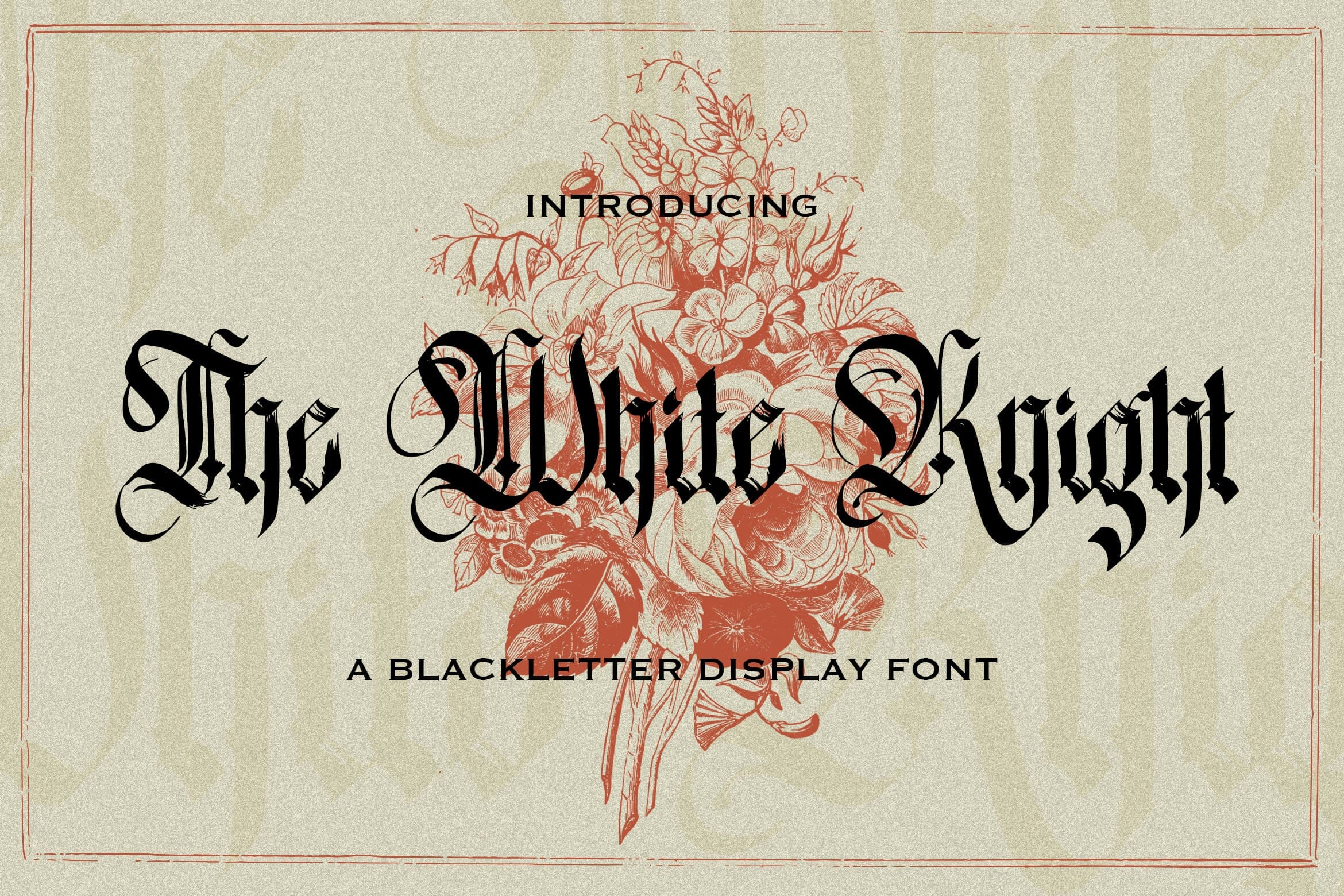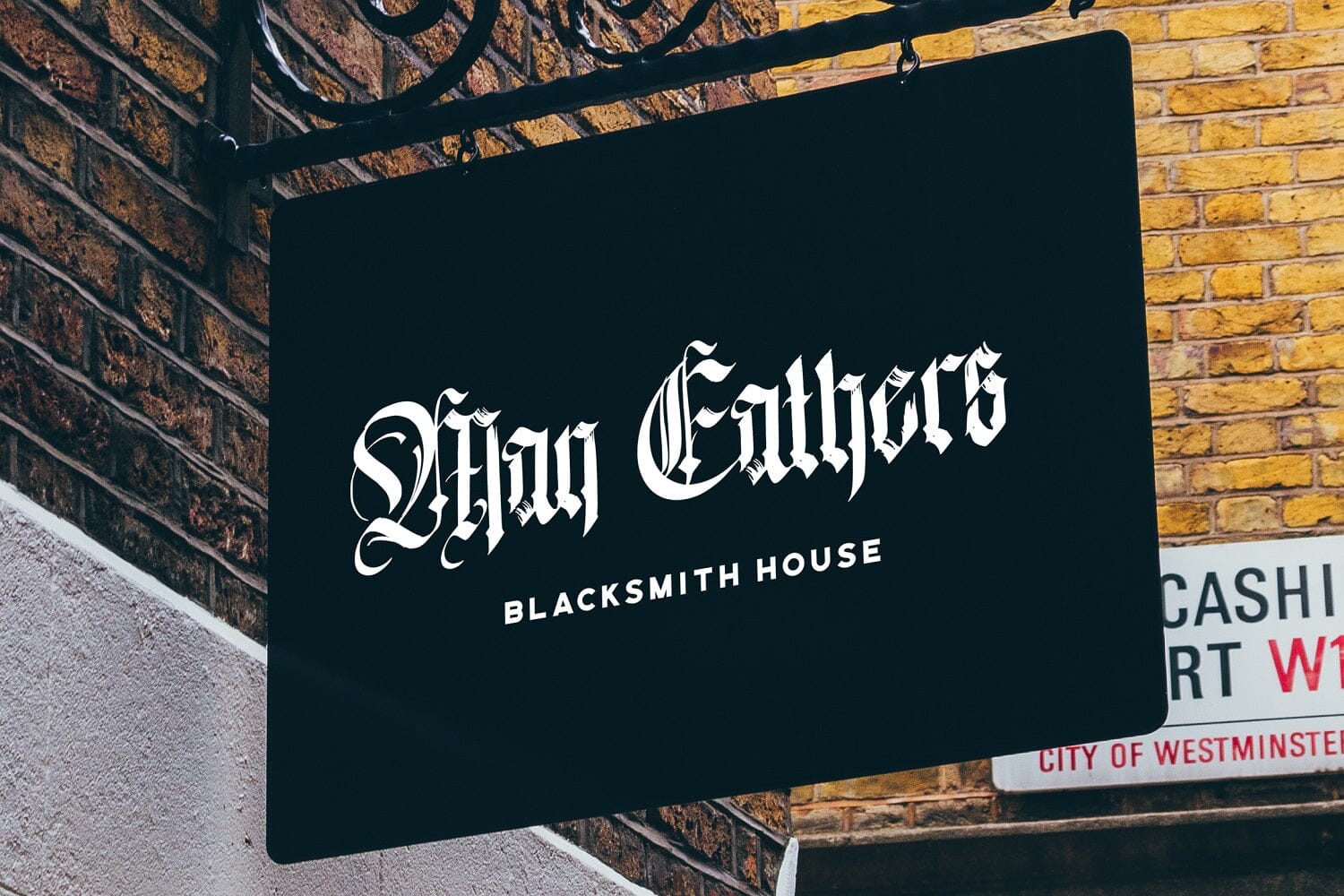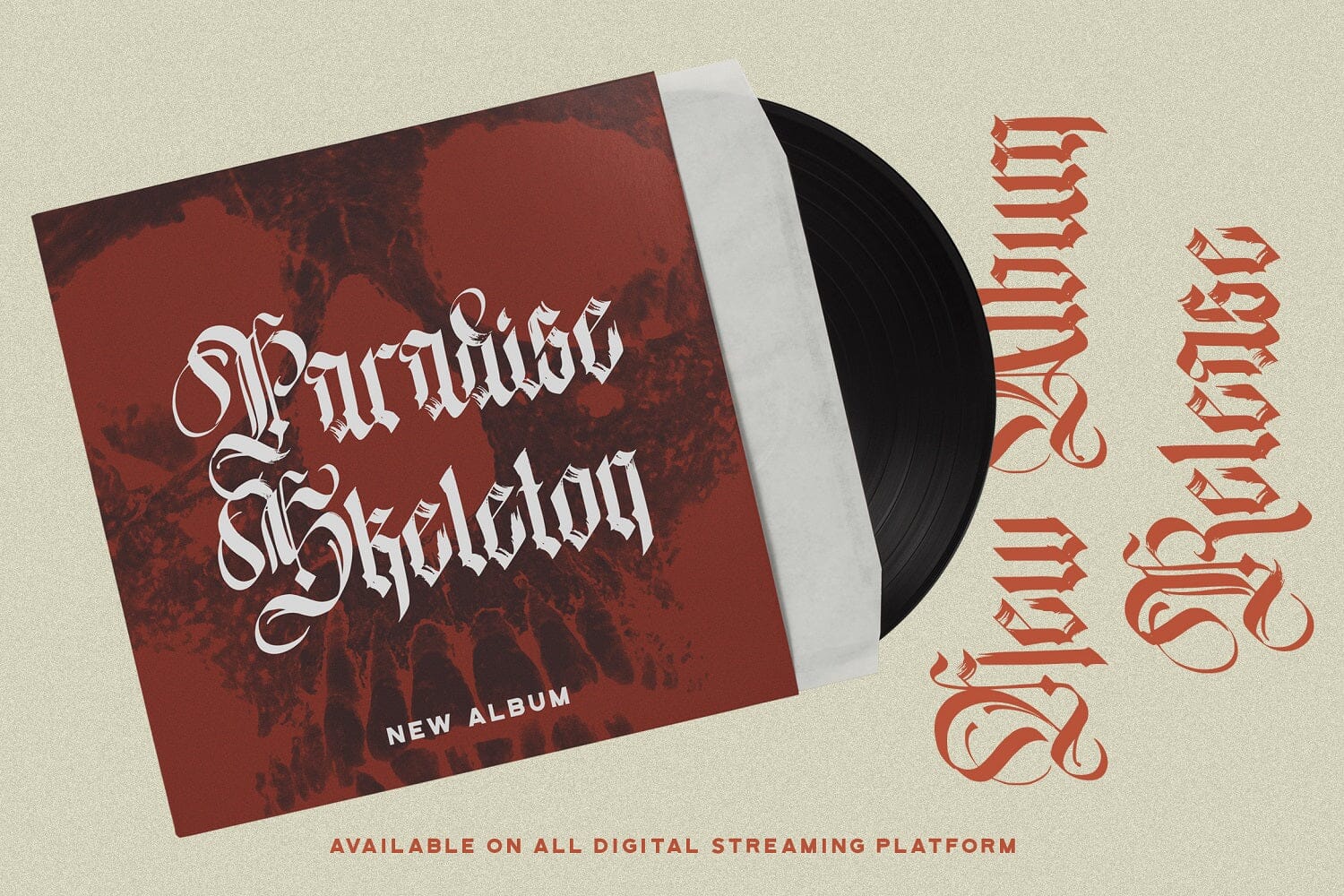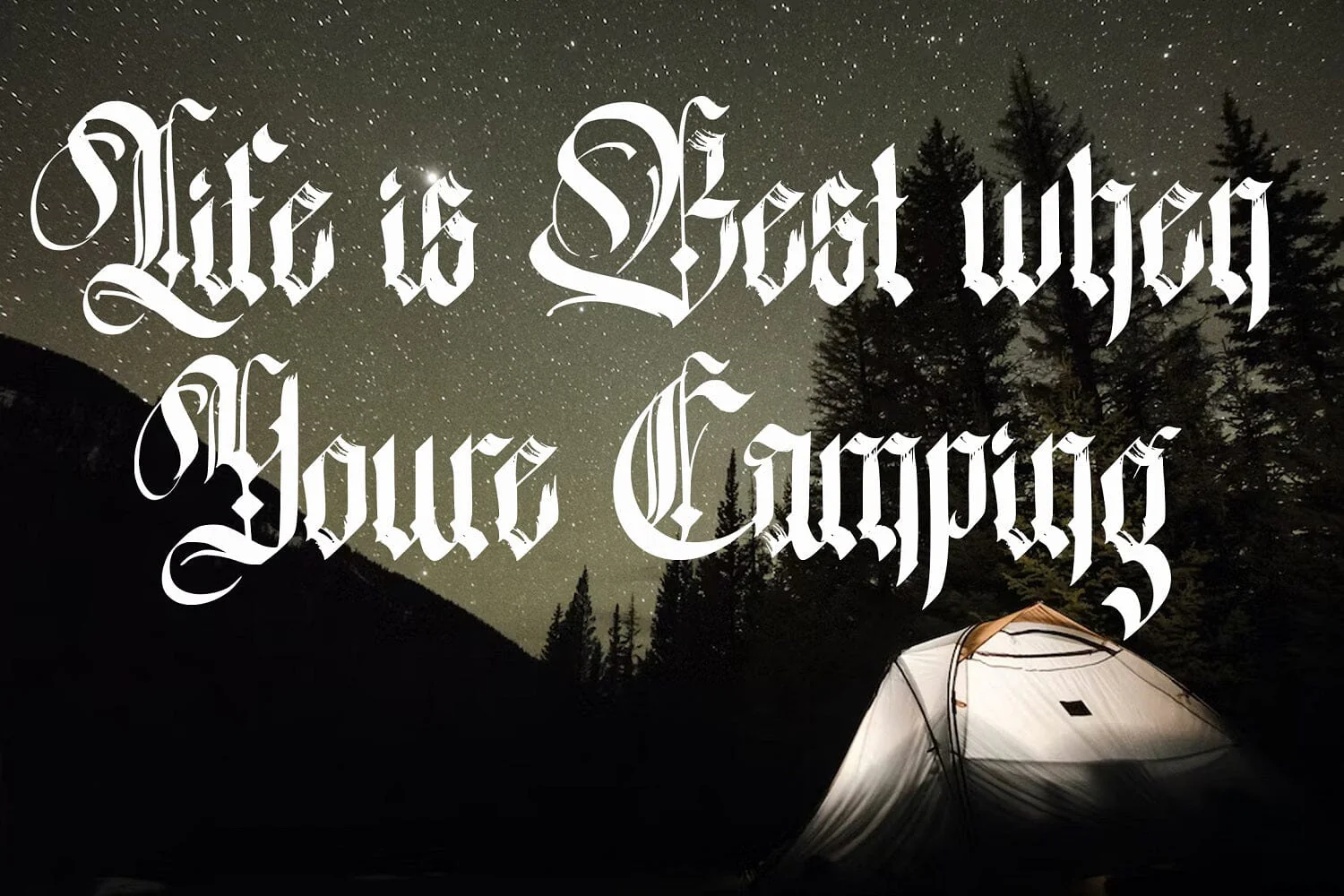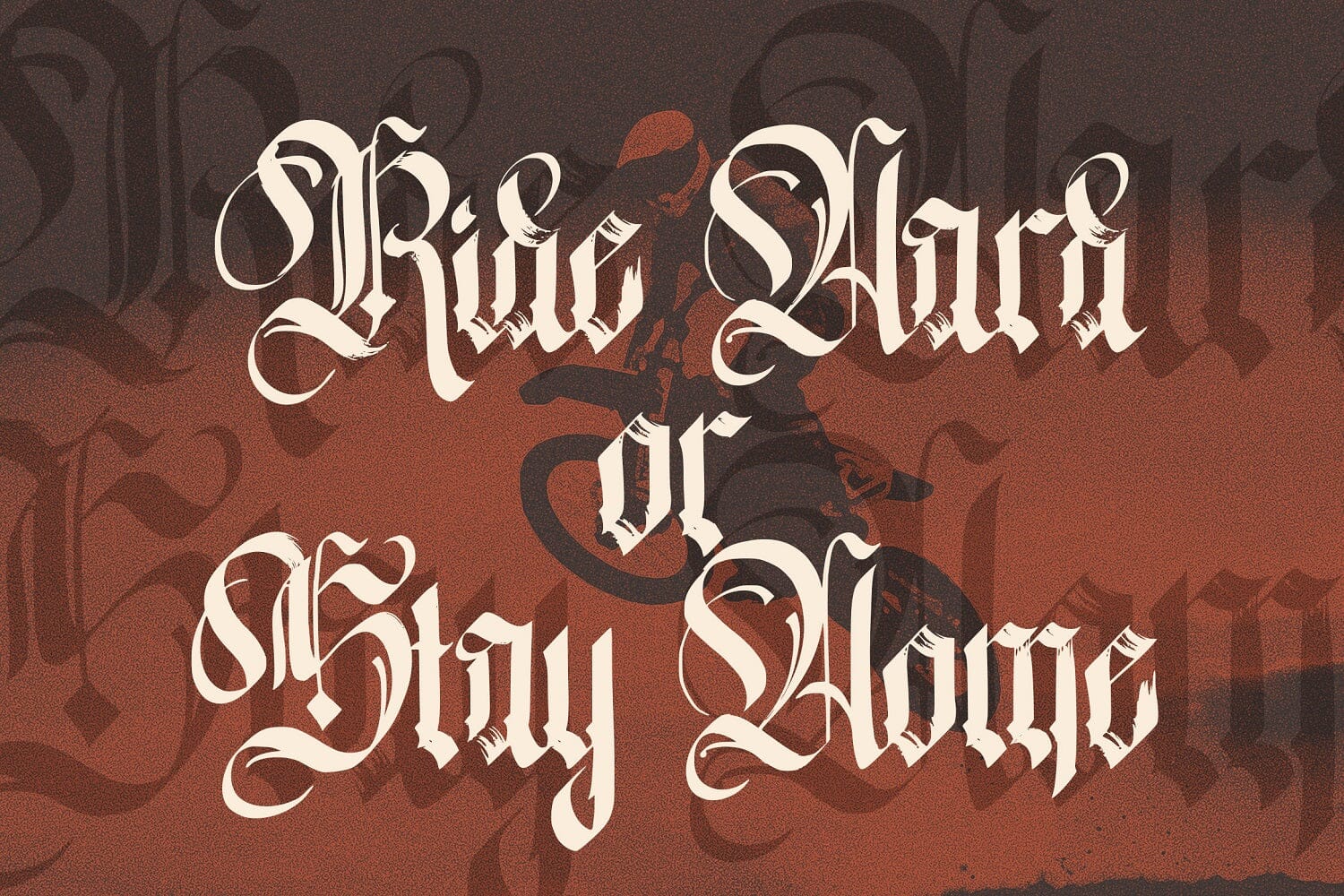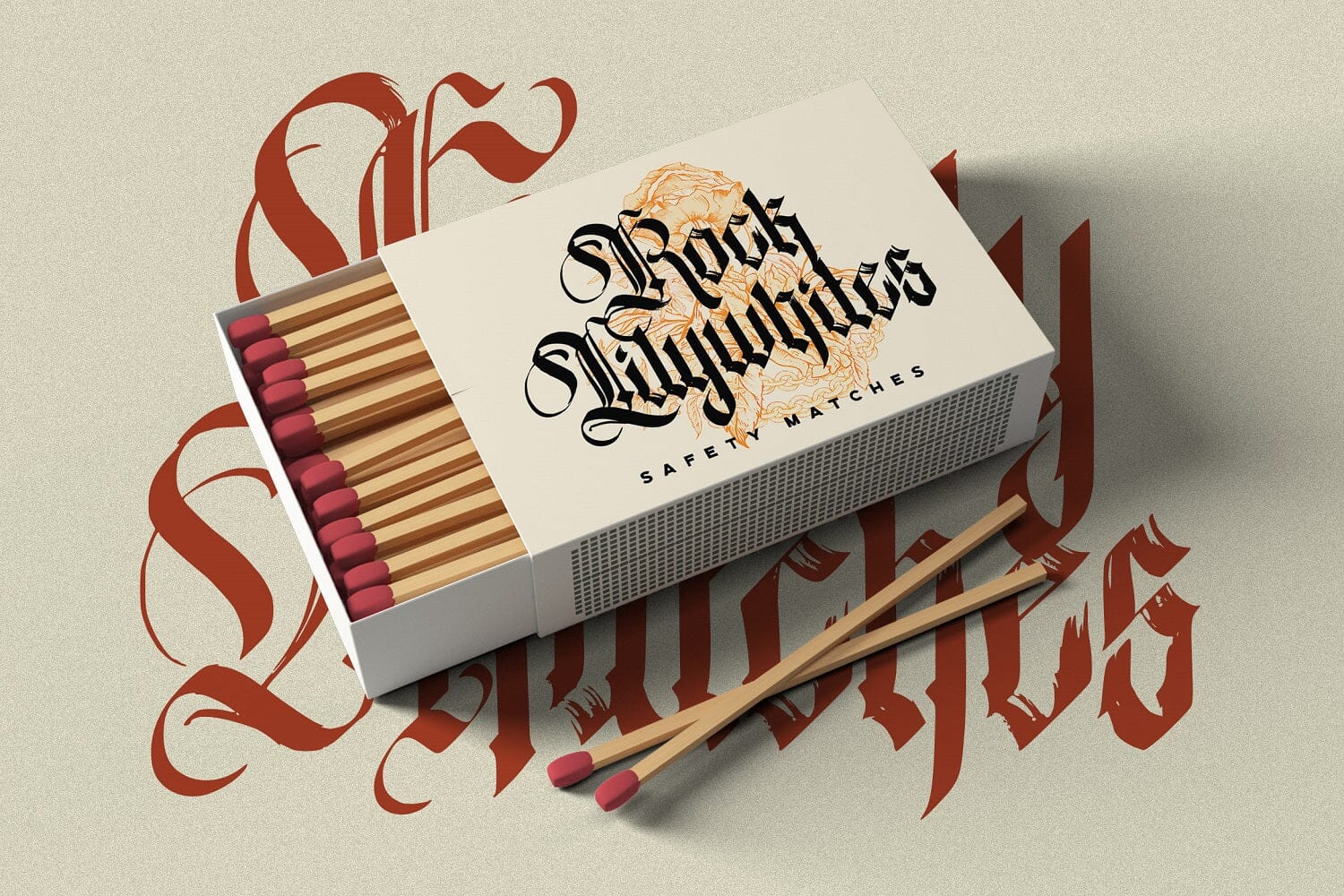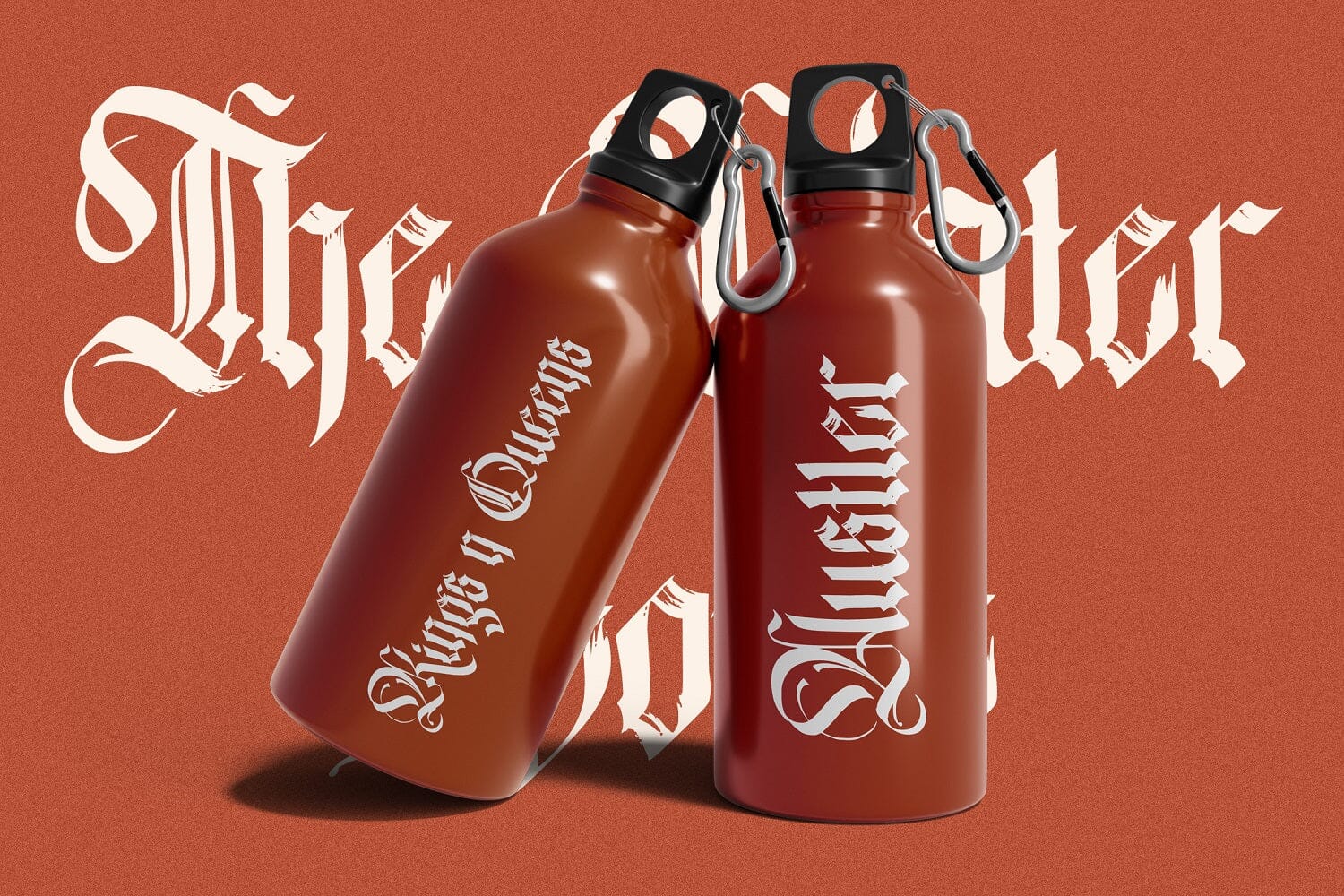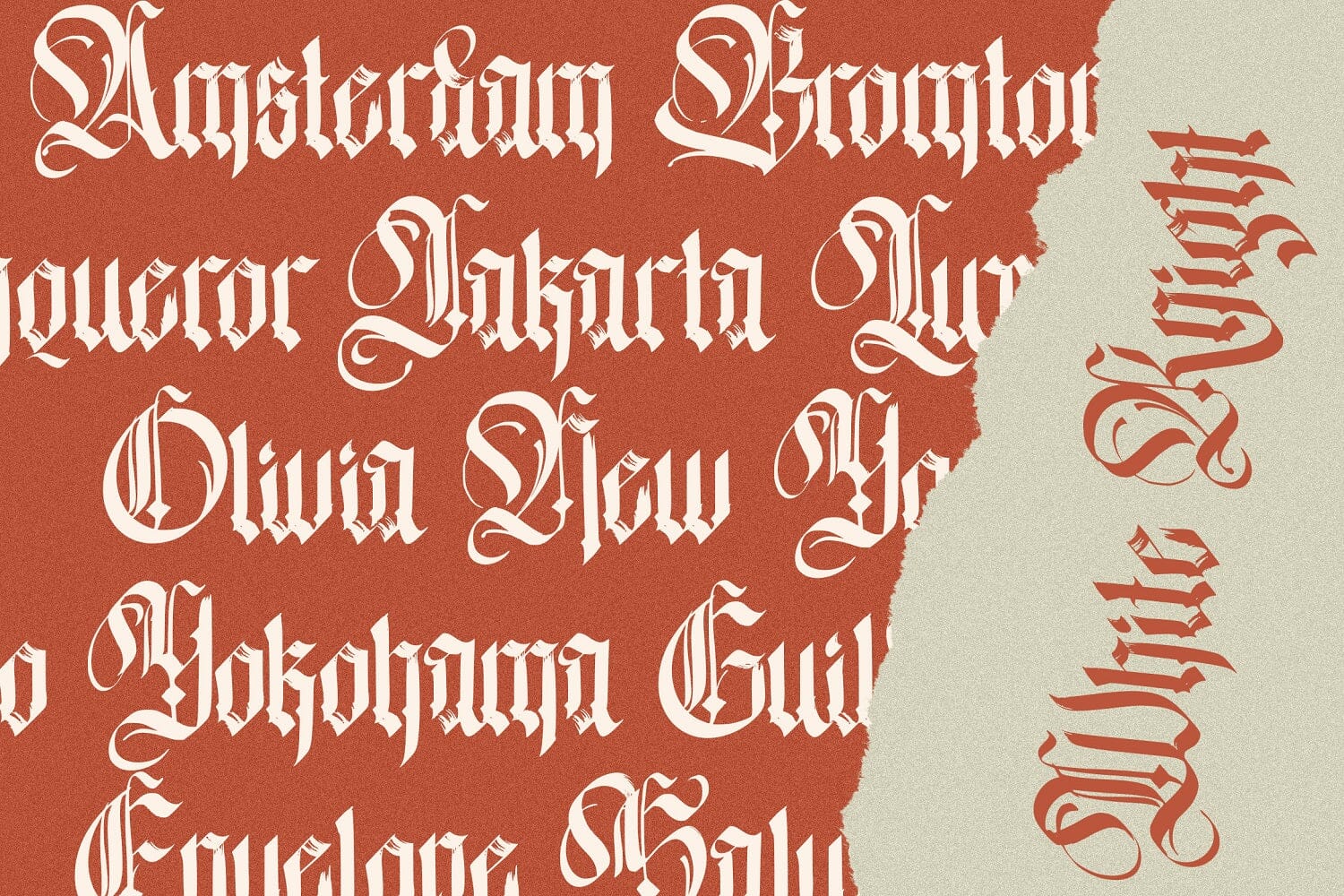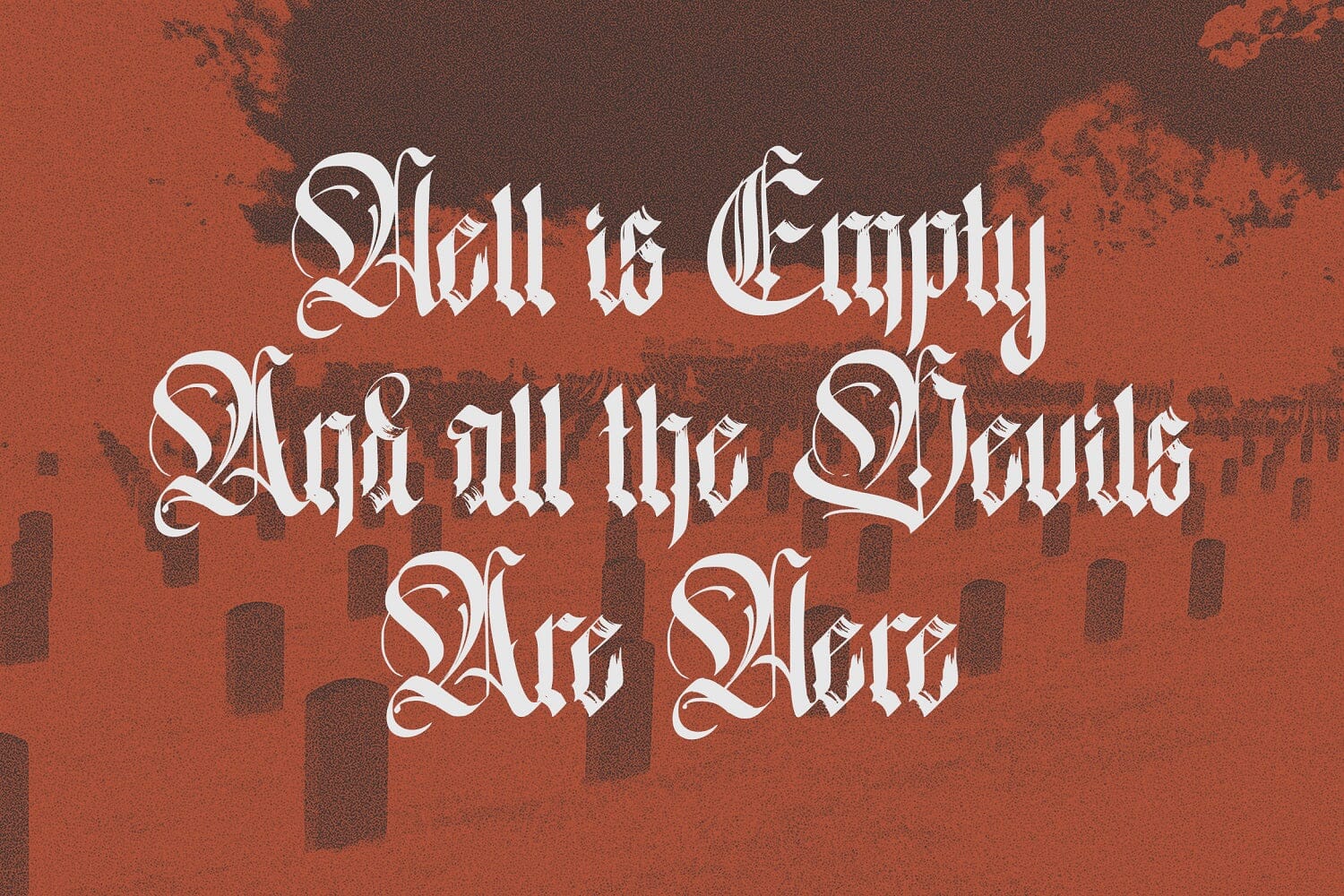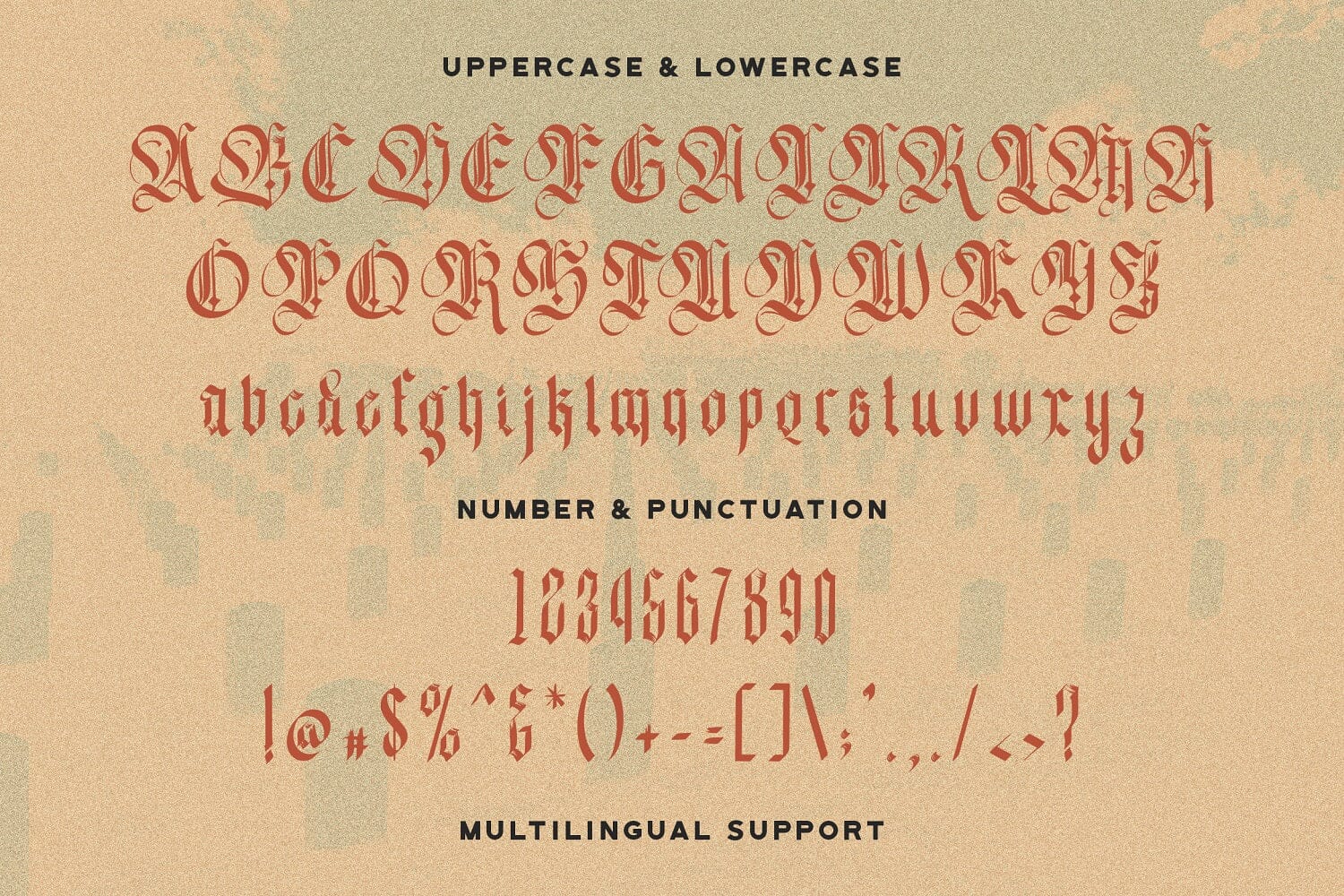
The White Knight - Blackletter Font
Introducing The White Knight - Blackletter Font
The White Knight is an incredibly authentic and daring blackletter font. Add this font to your favorite creative ideas and notice how it makes them stand out!